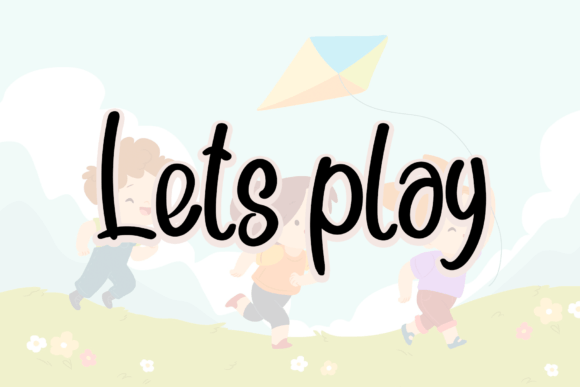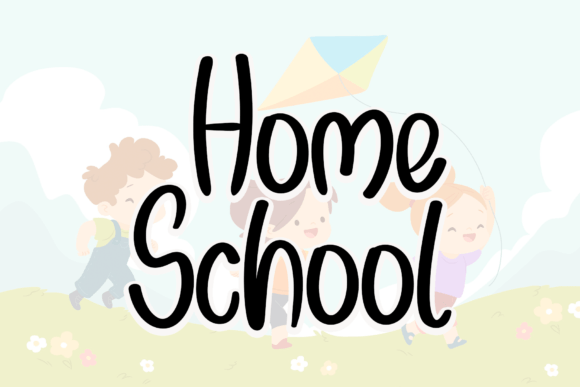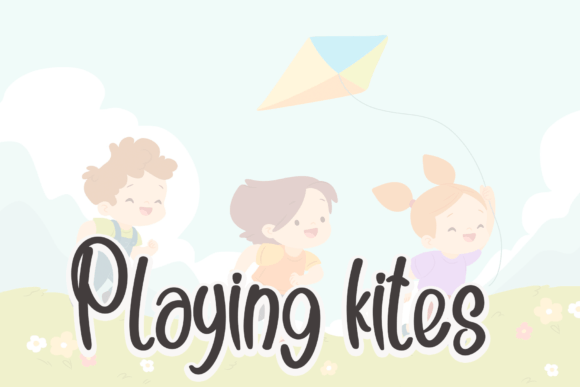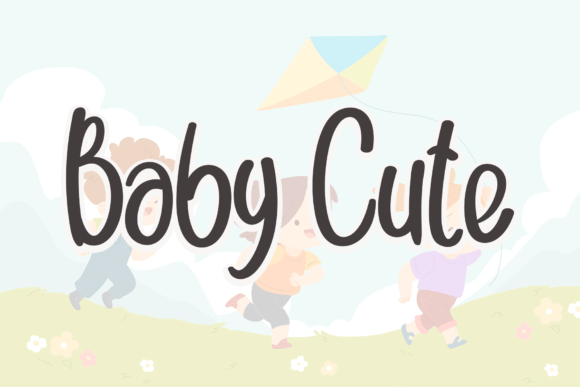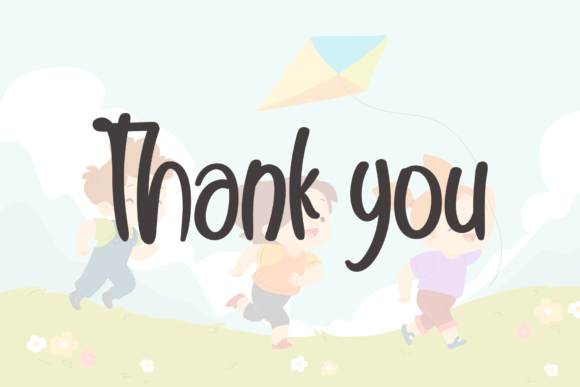
Introducing Child Font: The Sweet and Friendly Handwritten Display Font
Are you looking for a font that can add a touch of warmth and personality to your designs? Look no further than Child Font, a sweet and friendly handwritten display font that’s perfect for creating beautiful wedding invitations, cards, and other designs that require a lovely touch.
What is Child Font?
Child Font is a handwritten display font that’s designed to be fun and relaxed. Its sweet and friendly style makes it ideal for a variety of design projects, from wedding invitations and cards to posters, flyers, and more. With its elegant and flowing script, Child Font is sure to add a touch of sophistication and charm to any design.
Key Features of Child Font
- Handwritten style: Child Font has a beautiful handwritten style that’s perfect for creating personal and unique designs.
- Sweet and friendly: The font’s sweet and friendly style makes it ideal for designs that require a touch of warmth and personality.
- Fun and relaxed: Child Font is a fun and relaxed font that’s perfect for creating designs that are playful and carefree.
- Elegant and flowing script: The font’s elegant and flowing script makes it perfect for creating beautiful wedding invitations, cards, and other designs.
Uses for Child Font
Child Font is a versatile font that can be used for a variety of design projects, including:
- Wedding invitations: Child Font is perfect for creating beautiful and elegant wedding invitations that set the tone for a special day.
- Cards: The font is ideal for creating greeting cards, birthday cards, and other types of cards that require a personal touch.
- Posters and flyers: Child Font can be used to create eye-catching posters and flyers that grab attention and convey a message.
- Social media graphics: The font is perfect for creating social media graphics, such as Facebook posts, Instagram posts, and Twitter headers.
Benefits of Using Child Font
There are many benefits to using Child Font in your designs, including:
- Unique and personal style: Child Font adds a unique and personal style to your designs, setting them apart from others.
- Emotional connection: The font’s sweet and friendly style creates an emotional connection with your audience, making your designs more relatable and engaging.
- Flexibility: Child Font can be used for a variety of design projects, making it a versatile addition to your font library.
Tips for Using Child Font
Here are some tips for using Child Font in your designs:
- Use it sparingly: Child Font is a display font, so it’s best to use it sparingly to create emphasis and add a touch of elegance to your designs.
- Pair it with other fonts: The font pairs well with other fonts, so feel free to experiment with different font combinations to create a unique look.
- Experiment with colors: Child Font looks great in a variety of colors, so don’t be afraid to experiment with different colors to find the one that works best for your design.
Child Font is a sweet and friendly handwritten display font that’s perfect for creating beautiful wedding invitations, cards, and other designs that require a lovely touch. With its elegant and flowing script, Child Font is sure to add a touch of sophistication and charm to any design. Whether you’re a designer or a crafter, Child Font is a great addition to your font library.